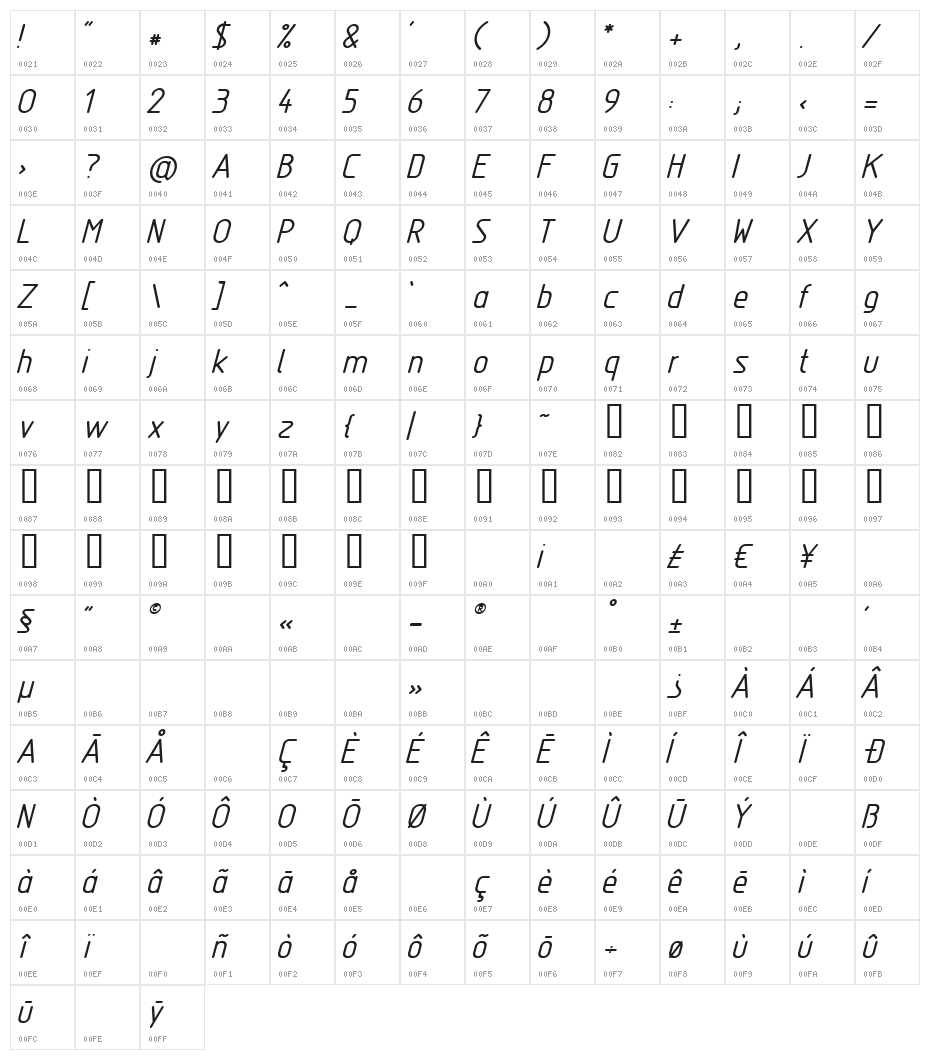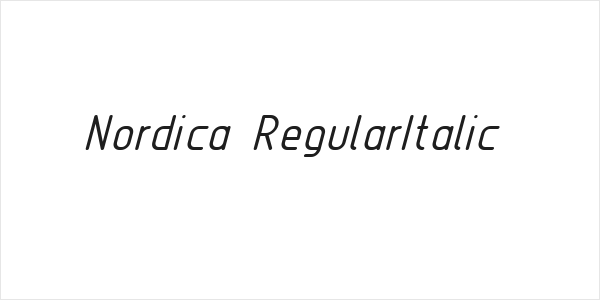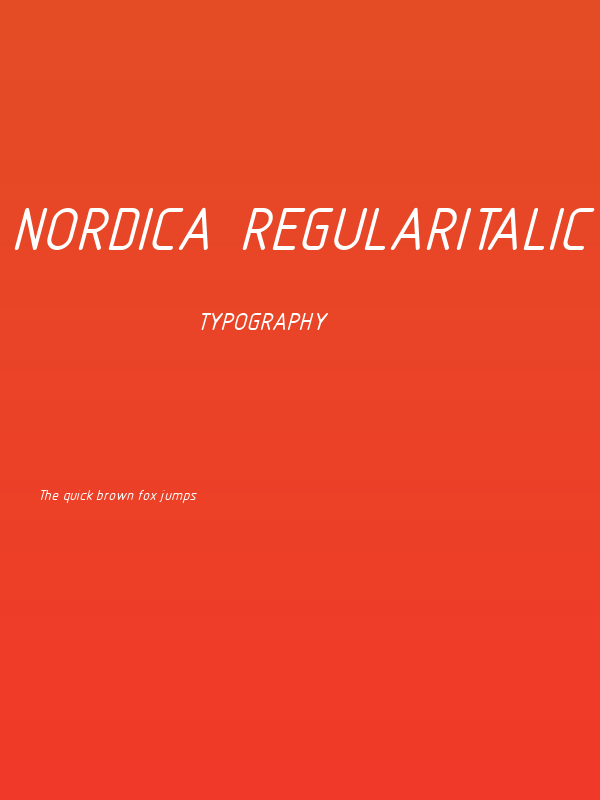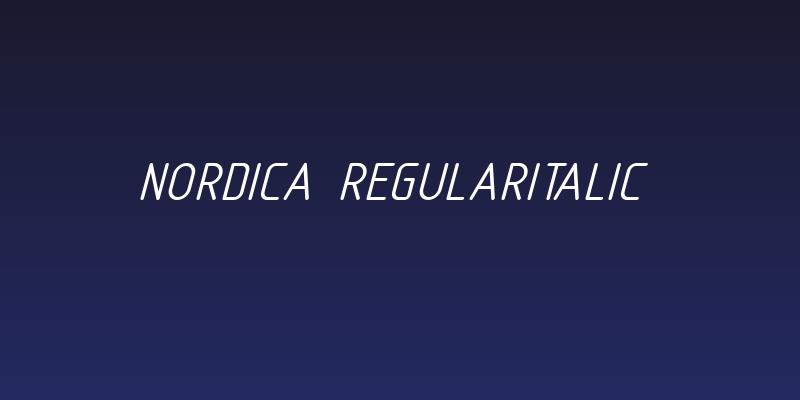
Nordica RegularItalic Font
Nordica RegularItalic Description
This font features a sleek and modern design with a slight italic slant, giving it a dynamic and forward-moving appearance. The characters are clean and streamlined, with a consistent stroke width that maintains readability while adding a touch of elegance. The uppercase letters are slightly taller than the lowercase, providing a balanced and harmonious look. The numerals are clear and distinct, making them suitable for various applications. Special characters are well-integrated, maintaining the font's overall aesthetic. This font's style is versatile, suitable for both digital and print media.